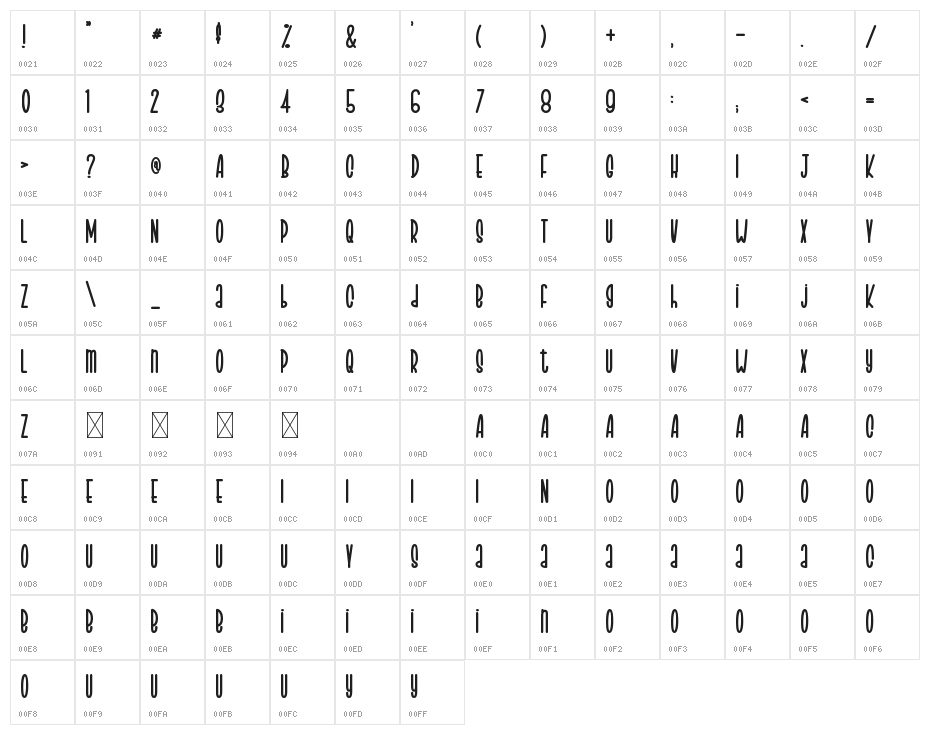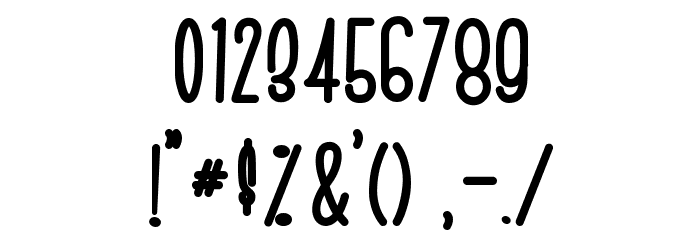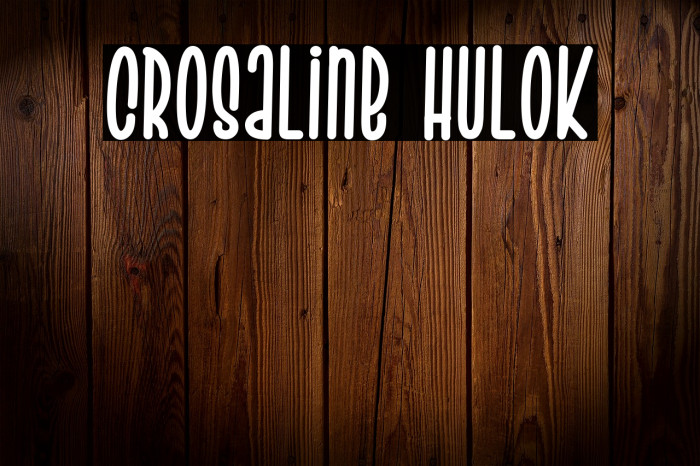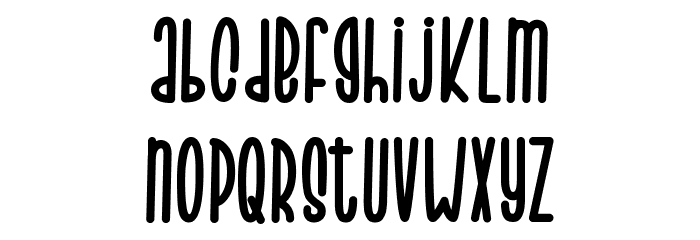
Crosaline Hulok Font
Crosaline Hulok Description
This font features a playful and rounded design with elongated vertical strokes, giving it a unique and friendly appearance. The characters are slightly condensed, which adds to its quirky charm. The uppercase letters maintain a consistent height, while the lowercase letters have a whimsical touch with varying heights and playful curves. The numerals are bold and clear, making them easily readable. Special characters are designed with the same playful style, ensuring consistency across the font. This font is perfect for projects that require a fun and approachable aesthetic.